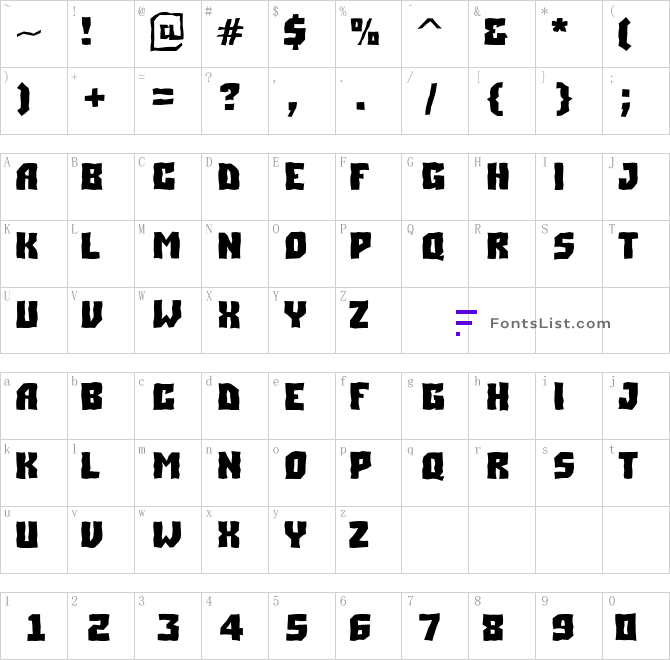
a_SimplerBrk-Bold.ttf is a very beautiful artistic font, a_SimplerBrk-Bold.ttf is widely used in the design and printing of various books and pictures,a_SimplerBrk-Bold.ttf has a strong visual impact,a_SimplerBrk-Bold.ttf is a commonly used font in newspapers, magazines and books, and is used in posters, e-commerce Poster design, store design, logo design, font design and other fields.a_SimplerBrk-Bold.